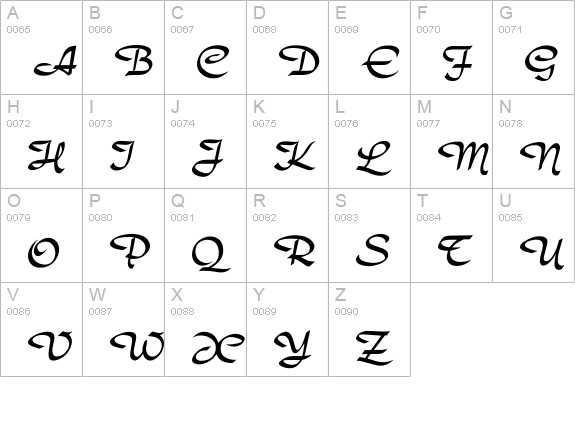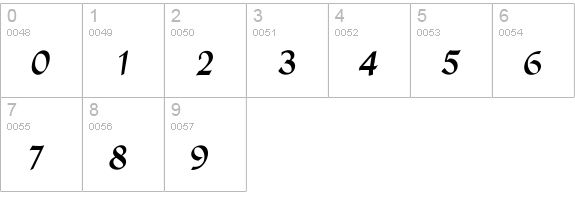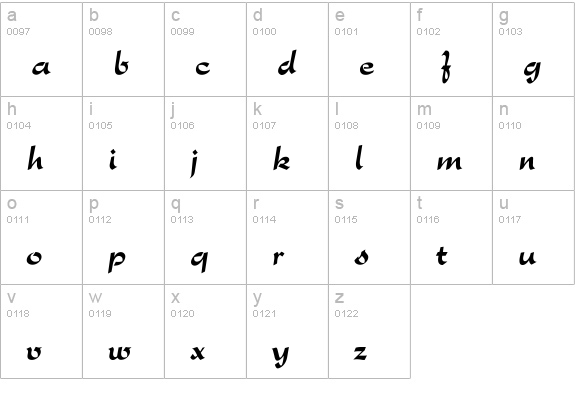
Cinderella Font Details
Introducing Cinderella font - a whimsical and elegant typeface that captures the enchanting spirit of a fairy tale. With its delicate curves and graceful flourishes, Cinderella font exudes a sense of magic and sophistication. This enchanting font is perfect for adding a touch of whimsy to your design projects, whether you're creating invitations, greeting cards, or branding materials. Best of all, Cinderella font is completely free to download at FontsMarket.com! Embrace the magic of this beautiful typeface and bring a touch of fairy tale charm to your creations. Download Cinderella font today and let your imagination soar!